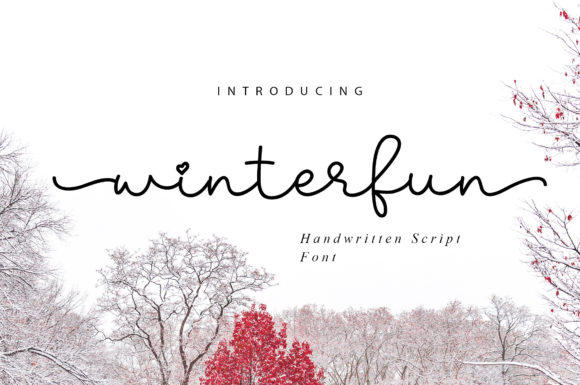
In the frosty expanse of digital expression, where words dance on screens like snowflakes, Winterfun Font emerges as a radiant beacon of charm and warmth. Crafted with meticulous care by the artisans of Typefar, this captivating script font is a testament to the enchanting allure of the winter season, beckoning you to embark on a journey of visual delight.
Immerse yourself in the whimsical embrace of Winterfun, a font that dances across your screen like a flurry of snowflakes, each letter a delicate crystal capturing the essence of the season. Its charming personality adds a touch of magic to any project, whether you're crafting heartfelt holiday greetings, designing enchanting invitations, or weaving captivating stories that transport readers to a winter wonderland.
With Winterfun's graceful curves and playful flourishes, your words will pirouette across the page, leaving a trail of elegance and wonder. It's a font that breathes life into your creations, transforming them into enchanting tales that captivate and enchant your audience. Allow Winterfun to be your artistic companion, guiding you through the frosty landscapes of imagination, where every word carries the weight of a snowflake, and every design shimmers with the brilliance of a winter's night.
Indulge in the endless possibilities that Winterfun presents. Its versatile nature makes it a font of infinite creative potential, seamlessly adapting to a myriad of projects. From enchanting logos that evoke the spirit of the season to eye-catching social media posts that spread holiday cheer, Winterfun effortlessly elevates your designs, transforming them into captivating expressions of winter's magic.
Embrace the enchanting allure of Winterfun and let your creativity flourish in a symphony of snowy landscapes and sparkling snowflakes. This captivating script font is the key to unlocking a world of visual enchantment, where every word becomes a delicate snowflake, and every design a masterpiece of winter's artistry. Winterfun awaits, ready to transform your digital creations into a winter wonderland of visual delight.